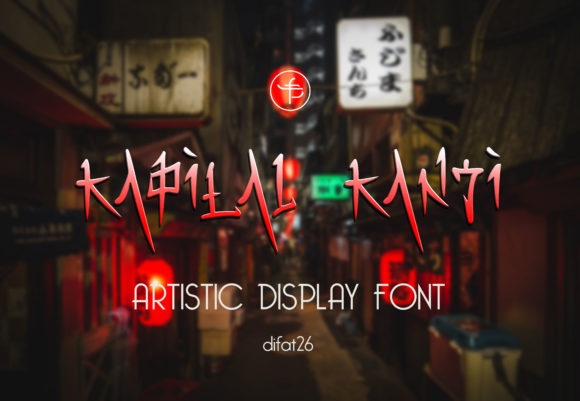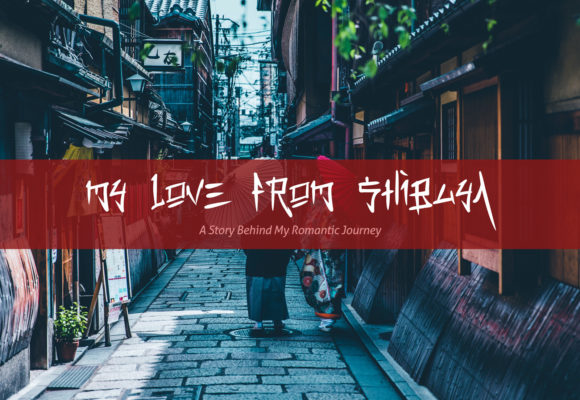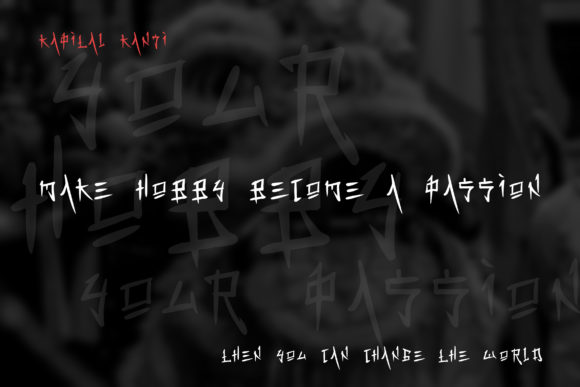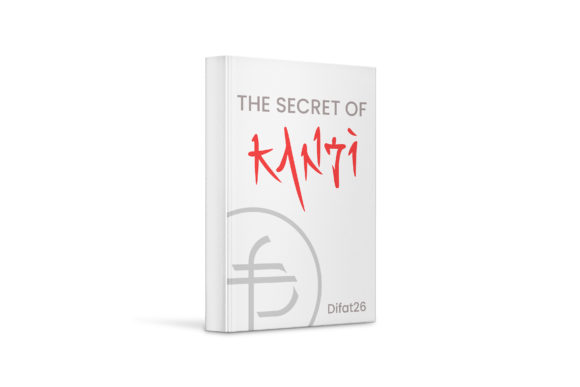
Kapital Kanji Font: Unique Display Font for Eye-Catching Posters
About the Kapital Kanji Font
Unleash your creativity with Kapital Kanji Font, a versatile font perfect for a wide range of applications. Kapital Kanji is an incredibly unique, Japanese-inspired display font. It will look stunning on any food menu, poster flyer, or print.
Use this font for your designs and explore its endless possibilities.
Kapital Kanji excels as a display font for headlines, short impactful statements, and branding elements where a strong visual presence is desired. Its unique character makes it ideal for projects with a modern, slightly edgy aesthetic, such as restaurant branding, posters for cultural events, or packaging for high-end products. Avoid using it for body text or long passages; its bold strokes and distinct forms are not optimized for readability in smaller sizes.
For optimal visual balance, pair Kapital Kanji with clean sans-serif fonts like Helvetica Neue or Futura for a contemporary feel, or a classic serif like Garamond or Times New Roman for a sophisticated contrast. A simple, geometric sans-serif would also create a strong, modern pairing. Avoid pairing it with other decorative or highly stylized fonts, which could create visual clutter.
Kapital Kanji projects a bold and modern personality, with a touch of playful energy derived from its Japanese-inspired forms. Brands targeting a younger, sophisticated audience seeking something unique and memorable would find this font particularly effective.